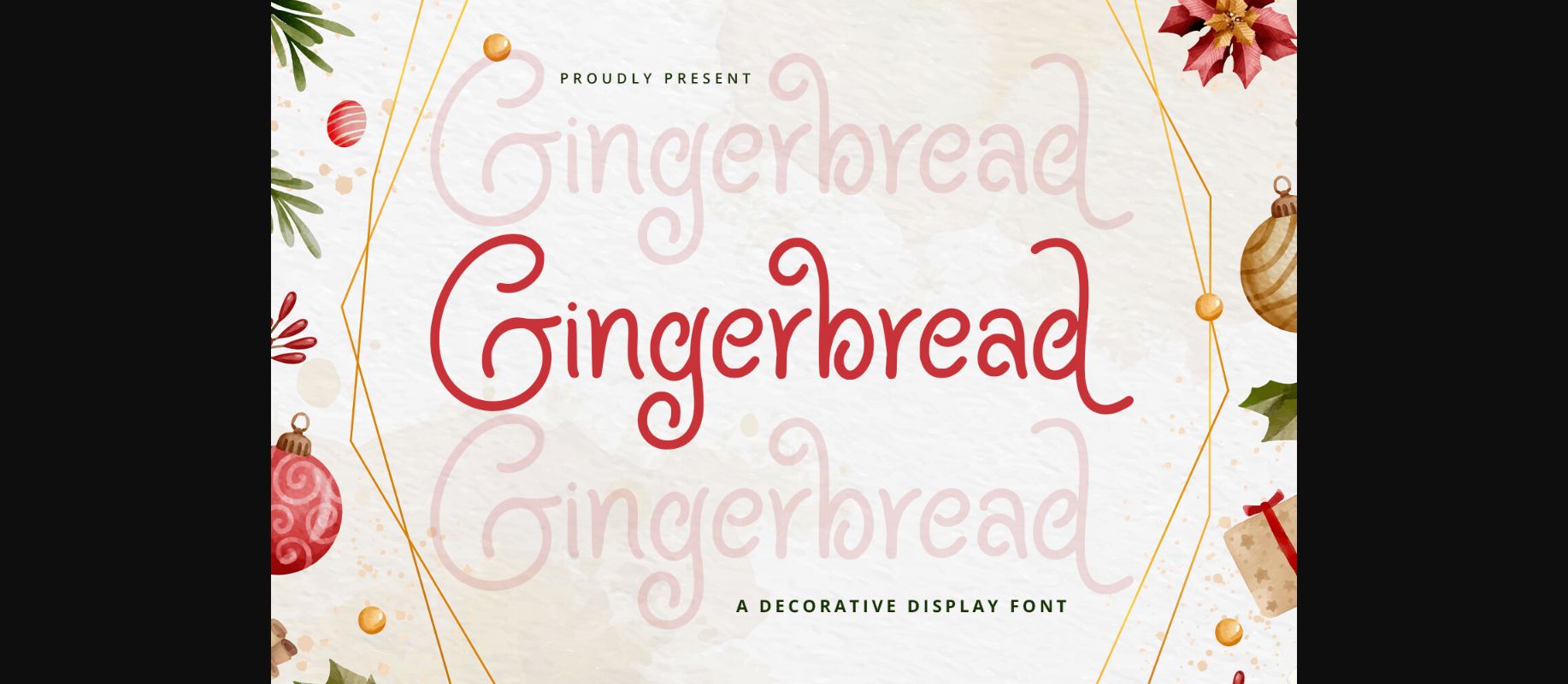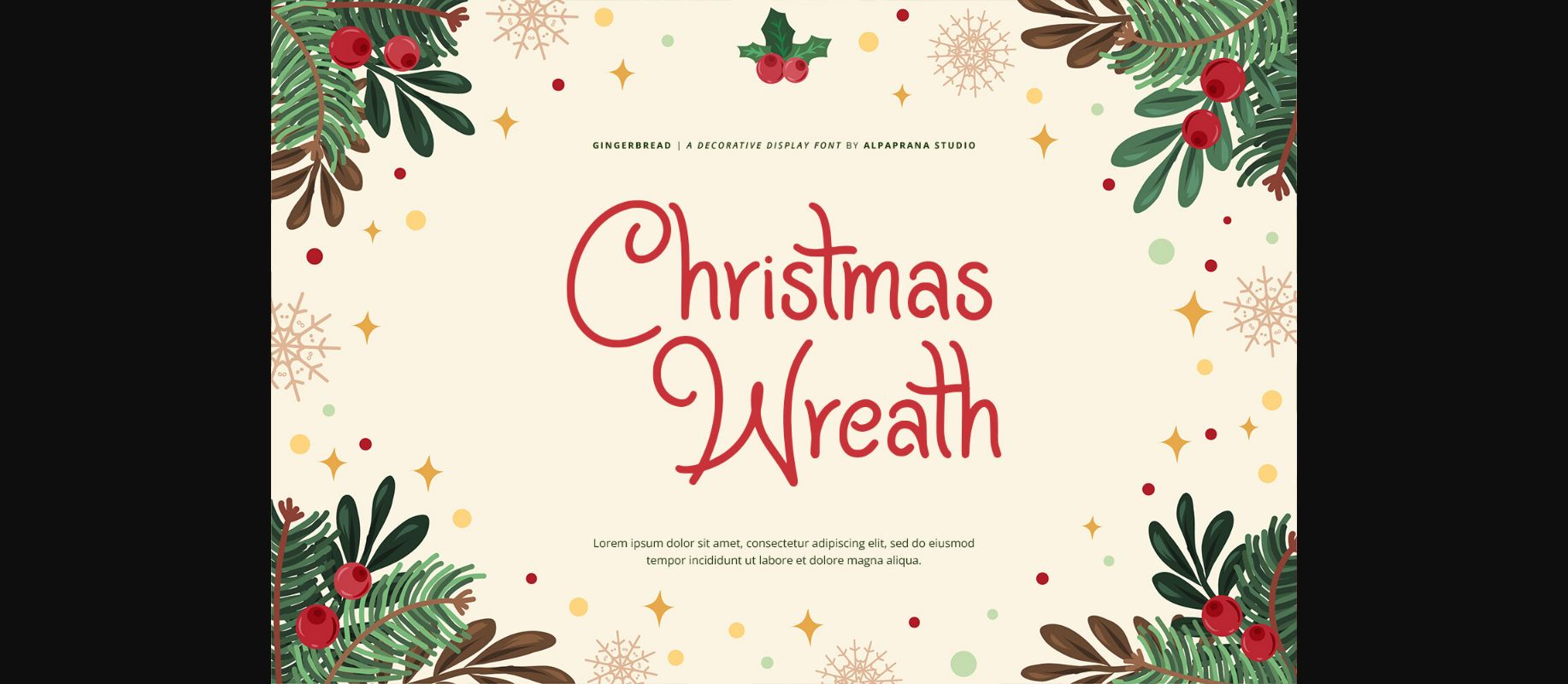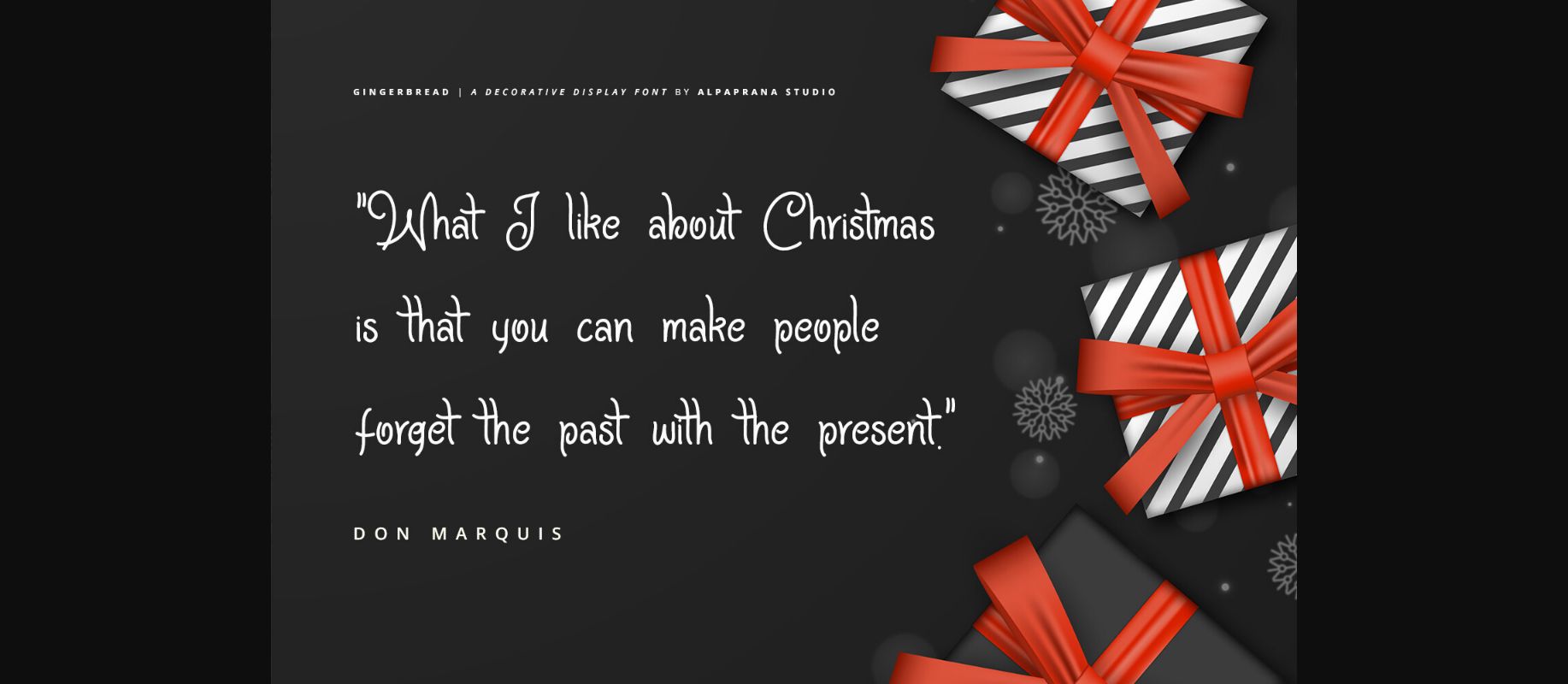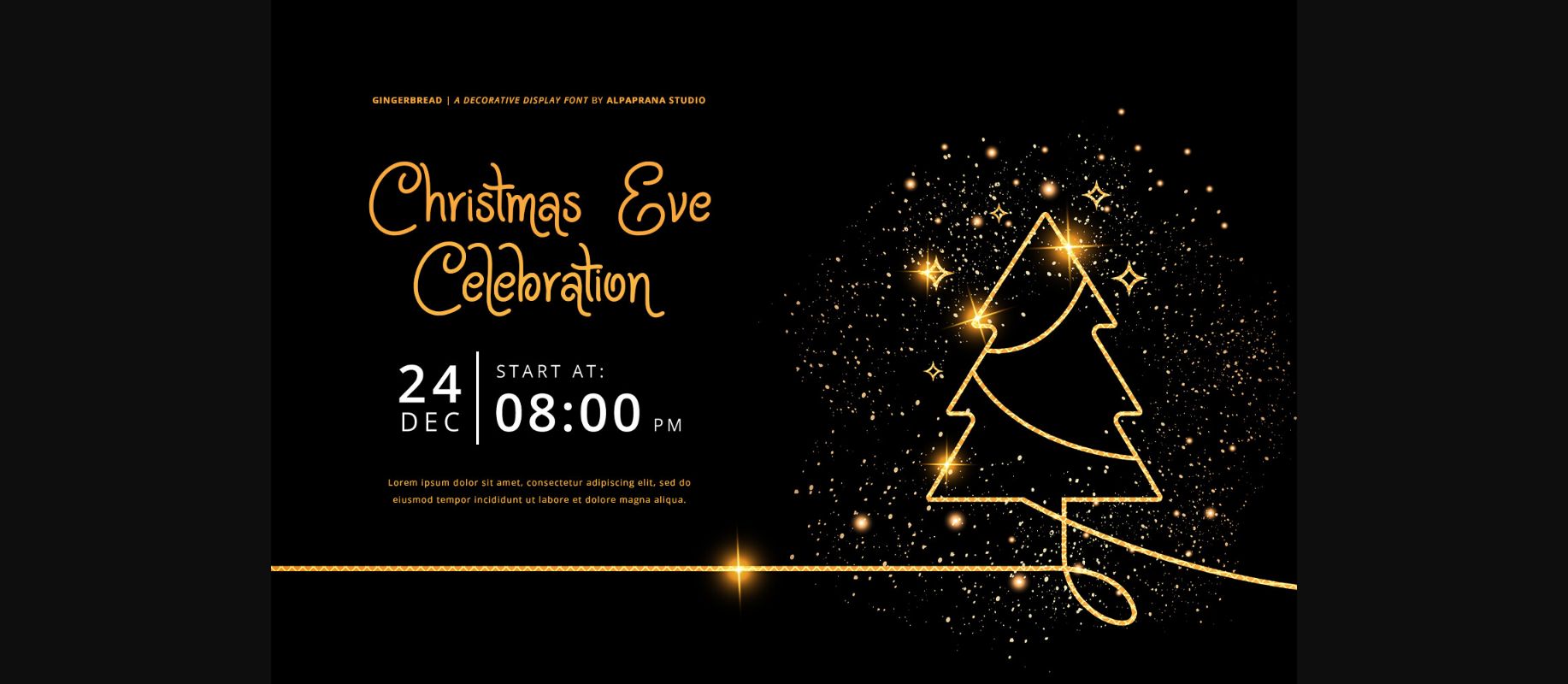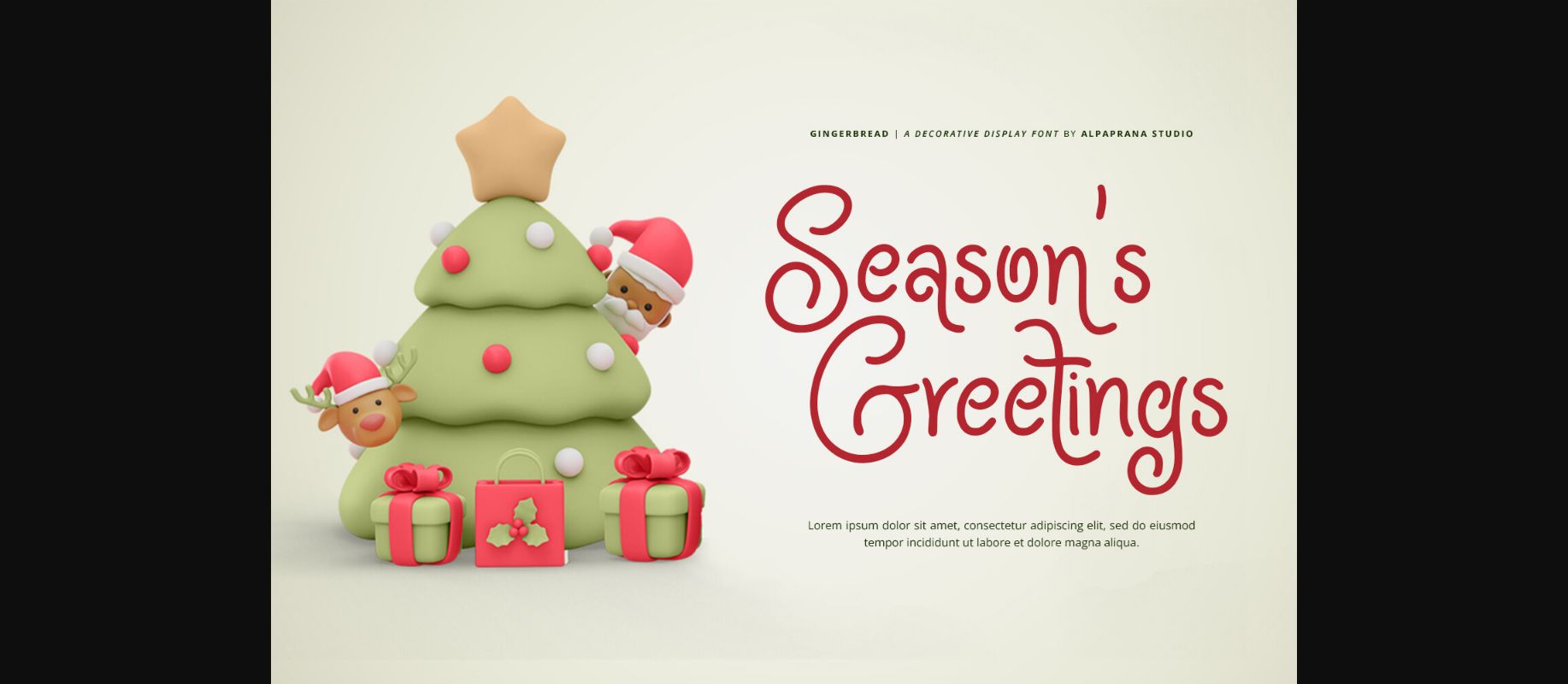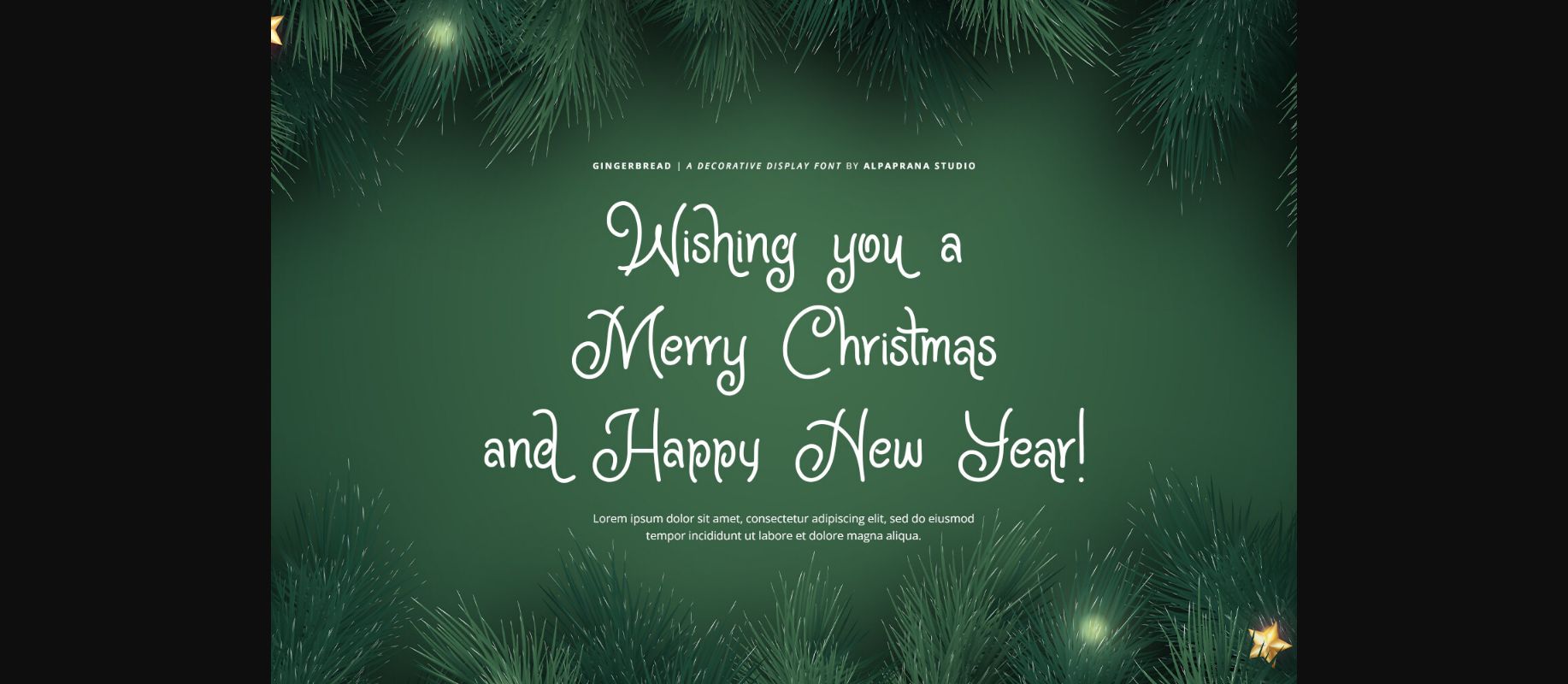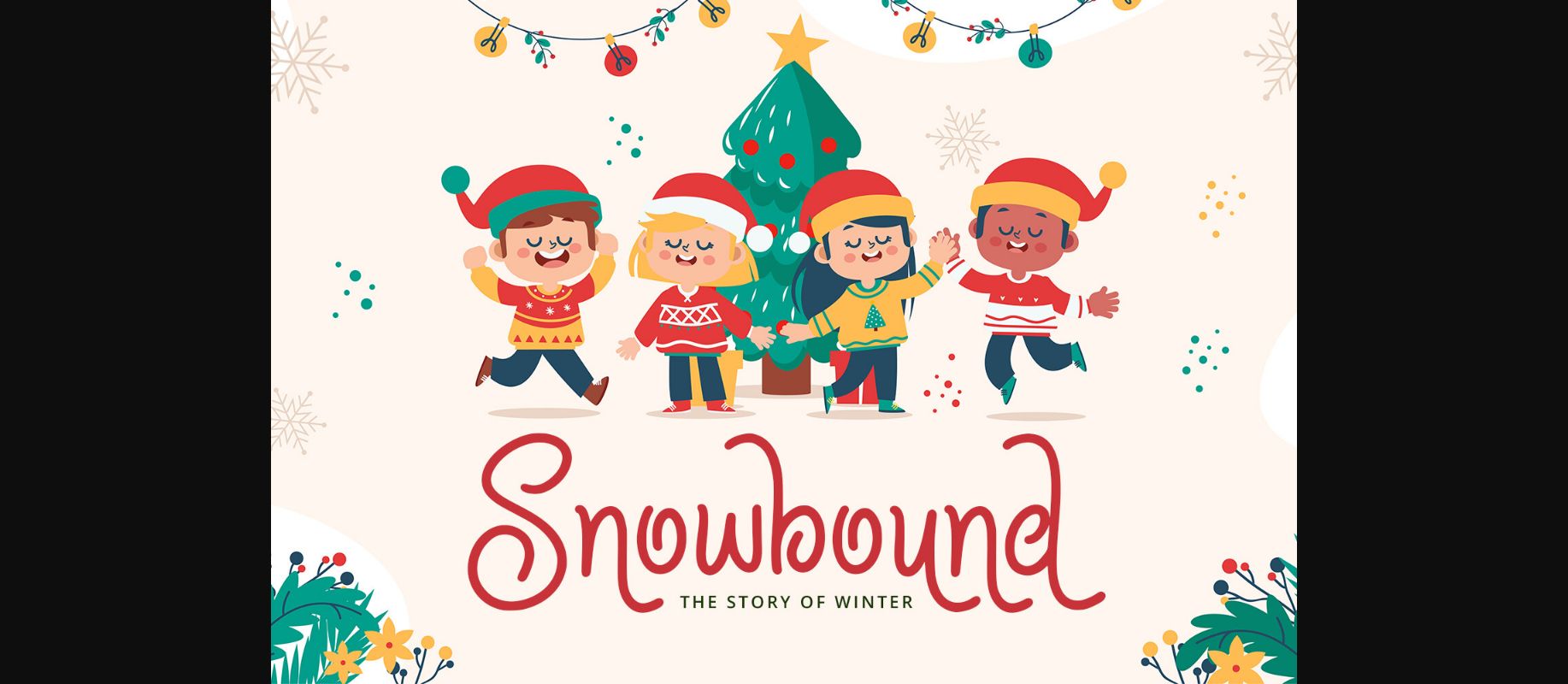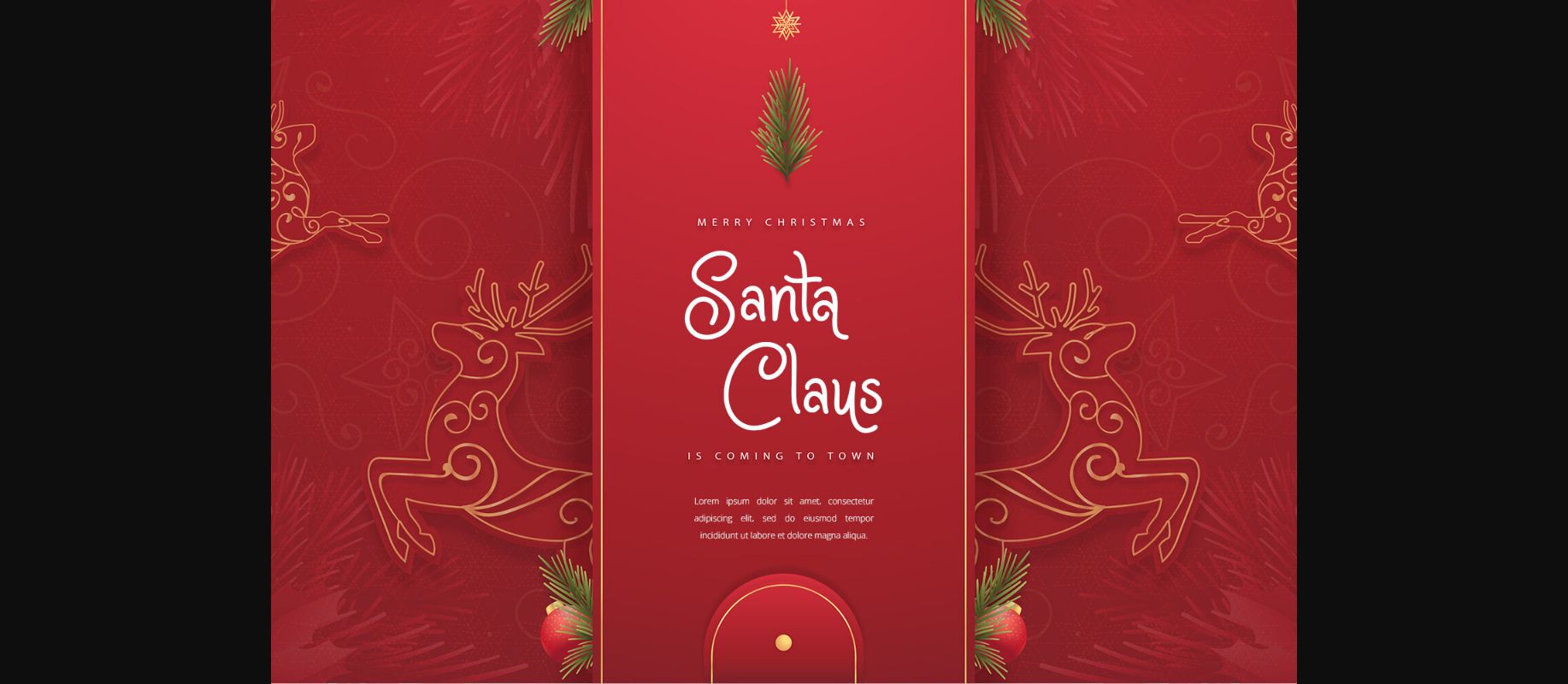
Gingerbread Font
About Gingerbread Font
Gingerbread is a gorgeous decorative font, that fits incredibly well to this time of the year. No matter the topic, this font will be an incredible asset to your fonts’ library, as it has the potential to elevate any creation.